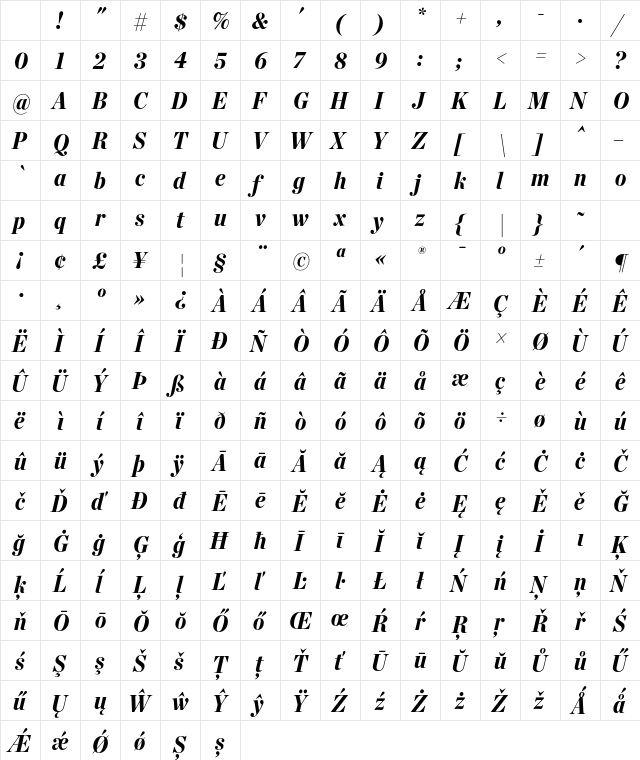
Complete Chronicle Disp Cond Black Italic glyph index. Displaying only characters natively supported by Chronicle Disp Cond Black Italic font.
Chronicle Disp Cond is a composed and adaptable typeface that performs quietly and consistently across a wide range of design contexts. The slanted form adds forward momentum and visual energy. Its narrow stance lets it pack a punch even in space-constrained designs.
Pro Tip: Use Chronicle Disp Cond for emphasis, pull quotes, and subheadings where its slanted energy can add rhythm to the layout.